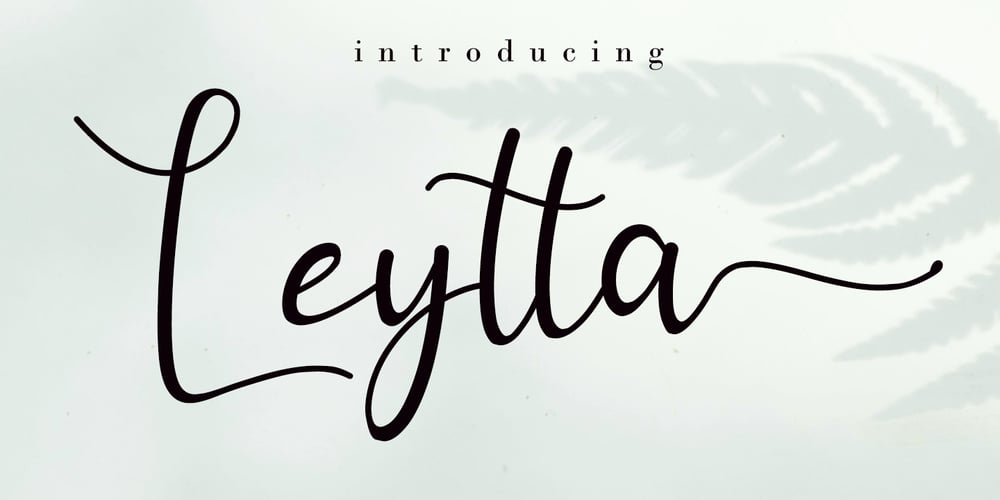
Leytta
Leytta font
Leytta Font Family was designed by Agung Eko Nugroho and published by AEN Creative Studio. Leytta contains 2 styles and family package options. Leytta is a sweet, soft hand-lettered handwritten font. Fall in love with its authentic feel and use it to create gorgeous wedding invitations, beautiful stationary art, eye-catching social media posts, and cute greeting cards.